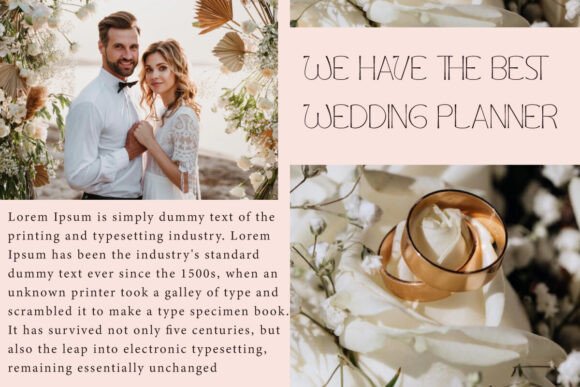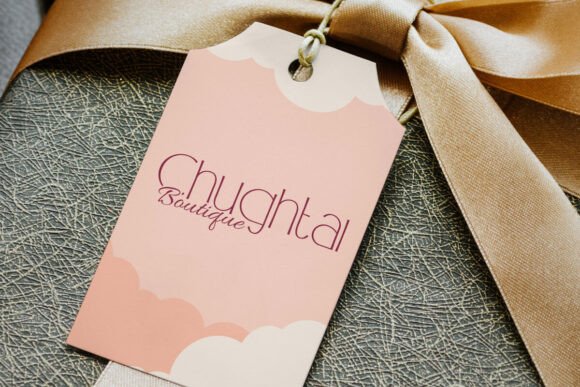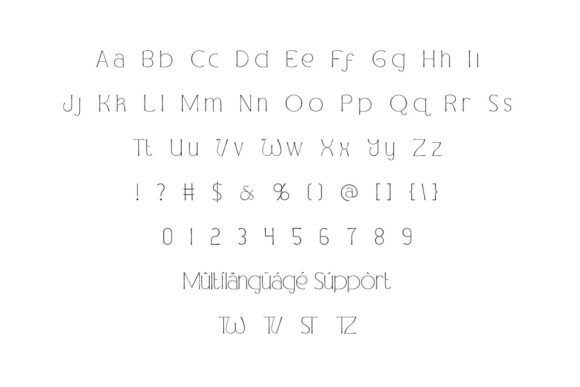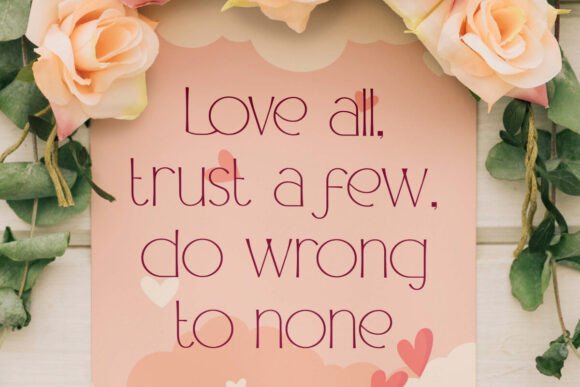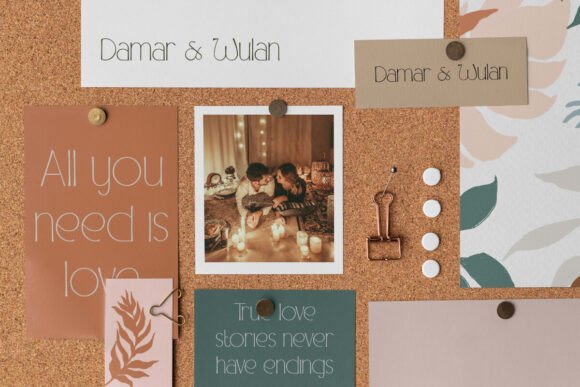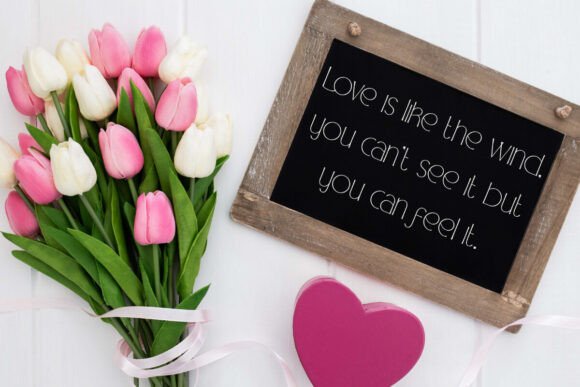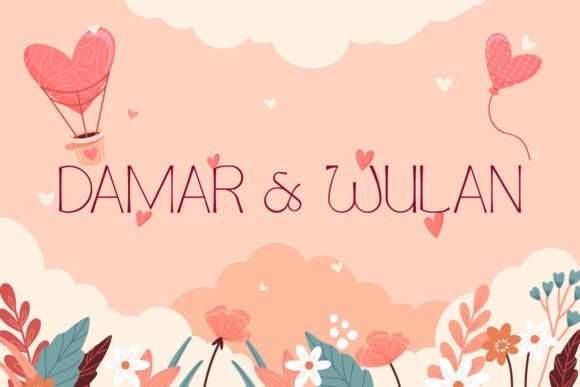
Damar and Wulan Font: Elevate Your Designs with Elegance and Sophistication
In the world of typography, a well-crafted font can make all the difference in elevating your designs to new heights. Introducing Damar and Wulan, an elegant and minimalist typeface that embodies sophistication and refinement. With its thin, sleek lines and creative letterforms, this font is perfect for designers and crafters looking to add a touch of luxury to their projects.
The Essence of Damar and Wulan
Damar and Wulan is more than just a font – it’s a design statement. Its contemporary style, paired with unique character, makes it an ideal choice for a wide range of applications, from branding and modern wedding invitations to logos and editorial designs. The font’s sleek lines and minimalist approach create a sense of elegance, perfect for designers who want to convey a sense of refinement and poise.
Key Features of Damar and Wulan
• Thin and sleek lines: Damar and Wulan’s slender lines create a sense of sophistication and elegance, making it perfect for designs that require a touch of refinement.
• Creative letterforms: The font’s unique letterforms add a touch of personality to your designs, setting them apart from more traditional typefaces.
• Contemporary style: Damar and Wulan’s modern aesthetic makes it perfect for designers who want to create fresh and innovative designs.
• Versatile: This font can be used for a wide range of applications, from branding and logos to editorial designs and wedding invitations.
Damar and Wulan is a versatile font that can be used by designers and crafters across various industries. Whether you’re creating a brand identity, designing a wedding invitation, or working on an editorial project, this font is sure to impress. Its elegant and sophisticated design makes it perfect for:
• Branding: Create a lasting impression with Damar and Wulan’s sleek and modern design.
• Wedding invitations: Add a touch of luxury and sophistication to your wedding invitations with this elegant font.
• Logos: Create a unique and memorable logo with Damar and Wulan’s creative letterforms.
• Editorial designs: Elevate your editorial designs with this font’s refined and artistic edge.
Why Choose Damar and Wulan?
With so many fonts available, why choose Damar and Wulan? Here are just a few reasons why this font stands out:
• Unique character: Damar and Wulan’s creative letterforms and sleek lines make it a one-of-a-kind font that will set your designs apart.
• Elegant and sophisticated: This font’s refined design makes it perfect for designers who want to create luxurious and high-end designs.
• Versatile: Damar and Wulan can be used across various industries and applications, making it a valuable addition to your font library.
Damar and Wulan is a stunning font that is sure to elevate your designs to new heights. With its elegant and sophisticated design, creative letterforms, and versatile applications, this font is perfect for designers and crafters who want to add a touch of luxury to their projects. Whether you’re working on a branding project, wedding invitation, logo, or editorial design, Damar and Wulan is the perfect choice.